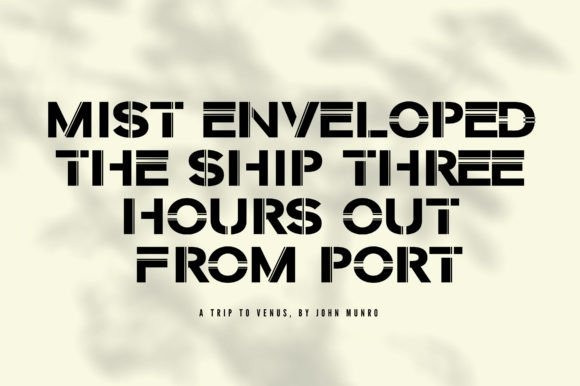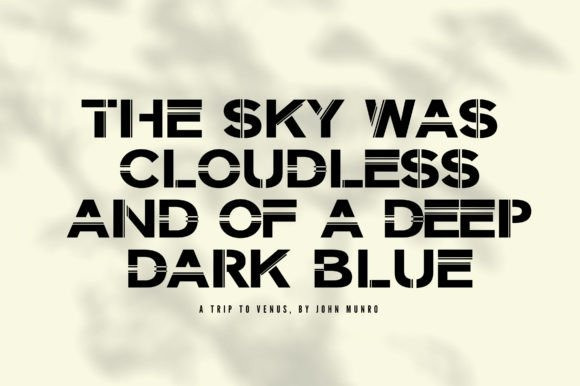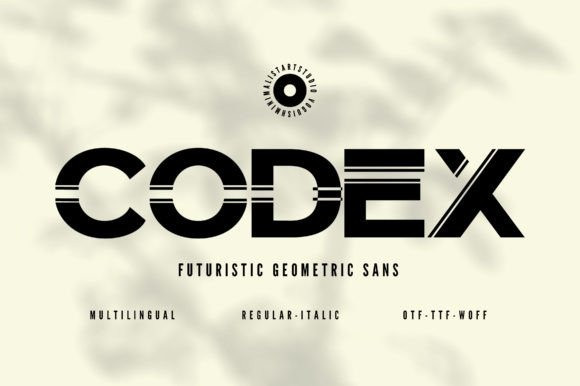
Codex Font
Codex Font, a sleek and modern sans-serif font that combines geometric elements with futuristic design to create a minimalist typeface that exudes sophistication and elegance. With over 604 meticulously crafted glyphs, Codex offers unparalleled versatility, making it perfect for a wide range of design projects.
Each character in Codex has been carefully crafted to create a clean, uncluttered appearance that is perfect for conveying a message clearly and concisely. The geometric shapes and minimalist design give the font a sleek and futuristic appearance, making it ideal for use in tech-related designs or for any project that requires a modern and cutting-edge look.
With its extensive character set, Codex offers a wide range of possibilities for designers, including multiple weights, alternate characters, and ligatures. The font also includes a variety of international characters, making it suitable for use in designs that require multilingual support.
In addition to its striking appearance, Codex is also incredibly easy to read, making it perfect for use in everything from headlines and logos to body text. Whether you’re designing a website, creating a brand identity, or crafting marketing materials, Codex is the perfect choice for any project that requires a sophisticated and modern typeface.
In summary, Codex is a geometric, futuristic, and minimalist sans-serif font with over 604 meticulously crafted glyphs, making it ideal for a wide range of design projects. Its sleek and modern appearance, extensive character set, and ease of readability make it the perfect choice for any project that requires a sophisticated and modern typeface.